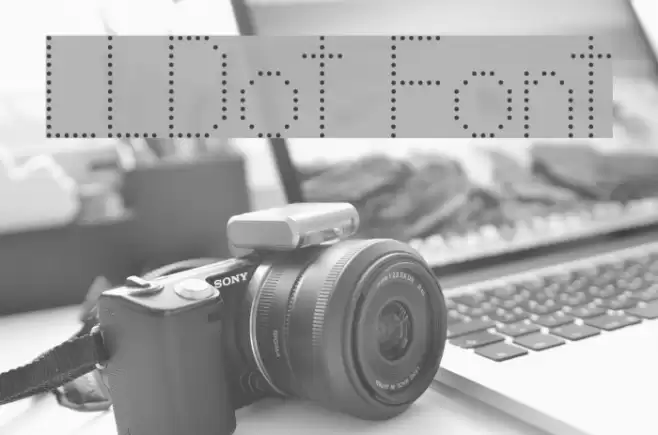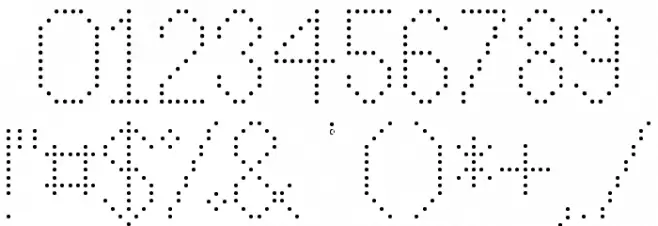
LLDot Font
LLDot Description
This font features a unique dotted design, where each character is composed entirely of small, evenly spaced dots. The style is geometric and minimalistic, offering a modern and digital aesthetic. The uppercase and lowercase letters maintain consistent proportions, while the numerals and special characters follow the same dotted pattern, ensuring uniformity across all glyphs. The font's playful yet structured appearance makes it suitable for creative and tech-oriented projects. Its distinct style captures attention and adds a futuristic touch to any design.
A modern, dotted font with a geometric and digital aesthetic from Uncategorized fonts.
- Proposed Projects: Ideal for digital art, tech branding, modern posters, and creative advertising.